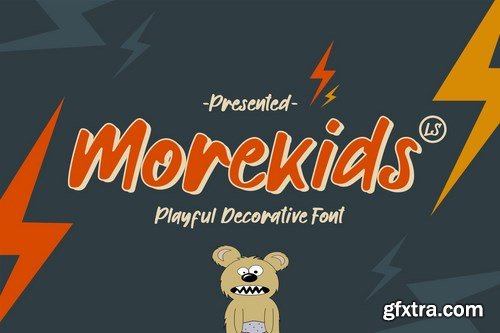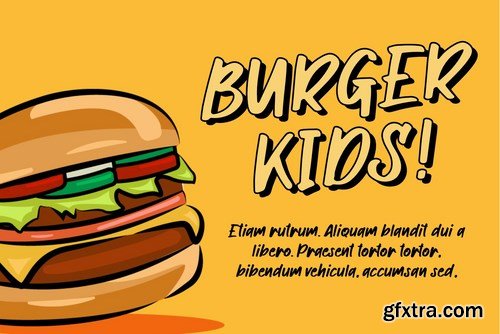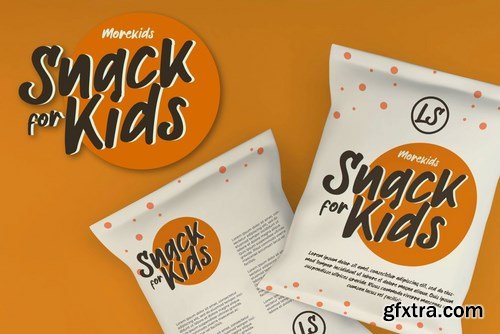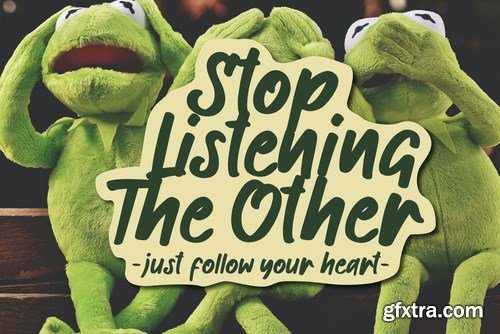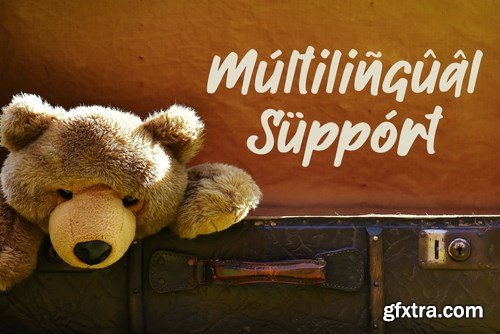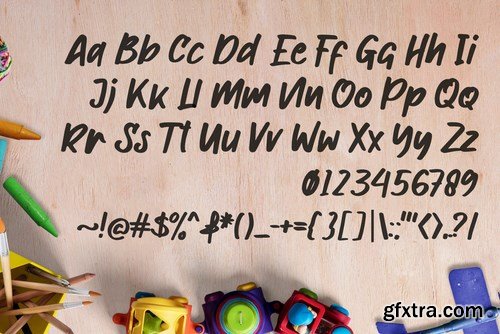
This pair was inspired by the playful poster design that i saw on some coffee shop, It was crafted by hand specially to add natural handmade feeling in its brand identity than i make it clean with pentool.
Opentype features Morekids font has 176 character set included Morekids Font is very good looking in logo, labels, product packaging, invitations, advertising and others.